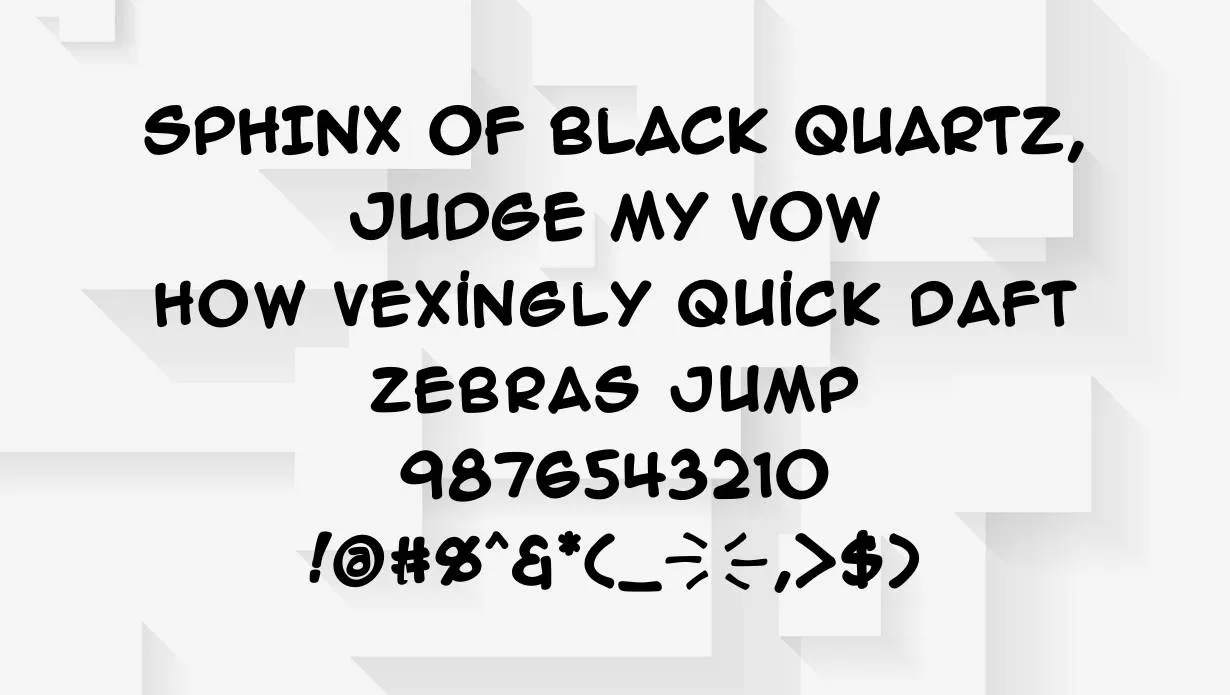
Karikatura Font is a script typeface that was designed by Typodermic Fonts. It is based on the comic book lettering of the 1960s. The Font family includes five weights (light, regular, medium, bold, and black), each of which includes a set of alternate characters. The font is available in both TrueType and OpenType formats.
This font style is largely useable among designers due to its pairing and copy-paste function. This Font was created by Typodermic Fonts in order to bring the lettering of comic books from the 1960s into the digital age.
This font has a unique feel to it and will give any project a touch of retro style. This typeface style was inspired by some other unique typefaces and it is much closer to the questrial font you can check out.
Who Used Karikatura Font?
Karikatura Font is best used for headlines and other display purposes. It can be used for both digital and print projects. This font is perfect for giving any project a touch of retro style. This font contains characters from the Latin, Cyrillic, and Greek scripts, as well as basic Latin punctuation marks.
The font’s letterforms are simple and straightforward, yet have just enough personality to make them distinctive. This is also commonly used for comics and cartoons. It has a very distinct style that makes it easily recognizable.
It is also good for pairing functions and if you need a more stylish look to your modern designs then use this typeface with the combination of mona font. This font is also commonly used in Microsoft Word software to make amazing presentations and attractive resumes.
Karikatura Font Family Appearance
| Name | Karikatura Font |
| Designer | Typodermic Fonts |
| Style | Script |
Family of Karikatura Font
- Karikatura Font
What font looks good with Karikatura?
There are many fonts that look good with this font. Some of these include Arial, Times New Roman, and Helvetica.